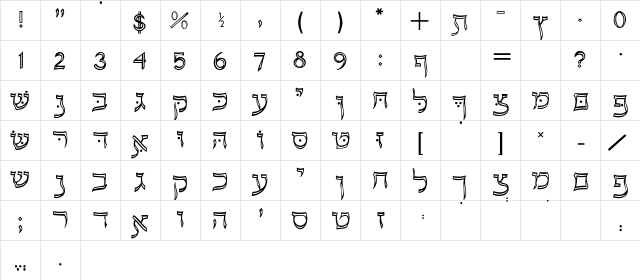
0-Meir Outline bold
Design Context for 0-Meir Outline Typeface
0-Meir Outline is built around its visual character rather than neutral utility — its distinctive forms are designed to make an impression at display sizes. Its bold stroke weight gives it real presence on the page.
Font Pairing: Pair with a clean neutral sans-serif for body copy to let 0-Meir Outline's character lead without overwhelming the composition.
Pro Tip: Treat 0-Meir Outline as the centrepiece of your typographic hierarchy. One strong heading set in a decorative face can carry an entire layout.